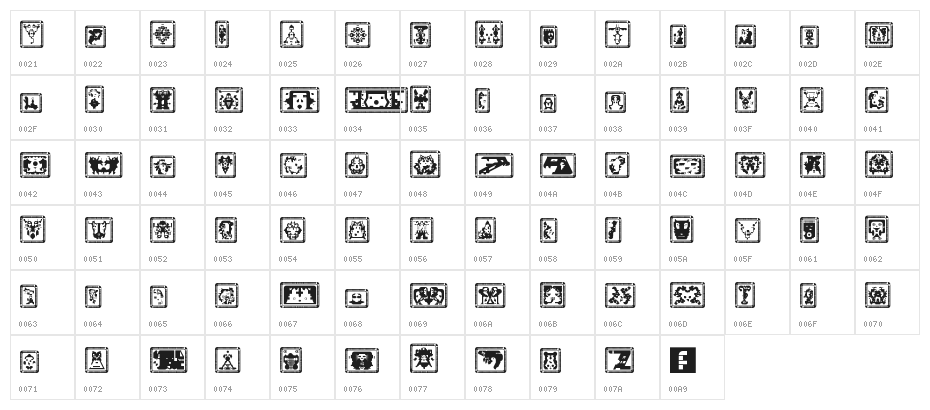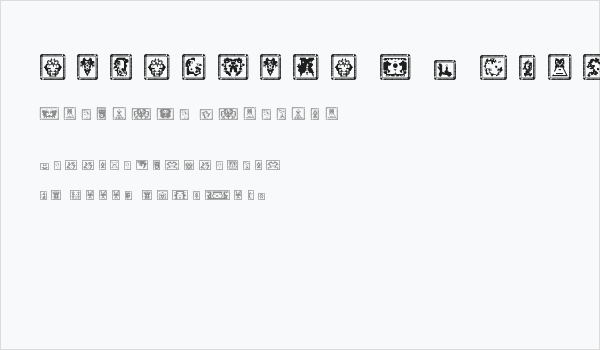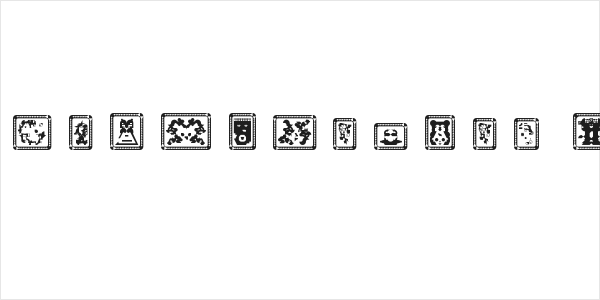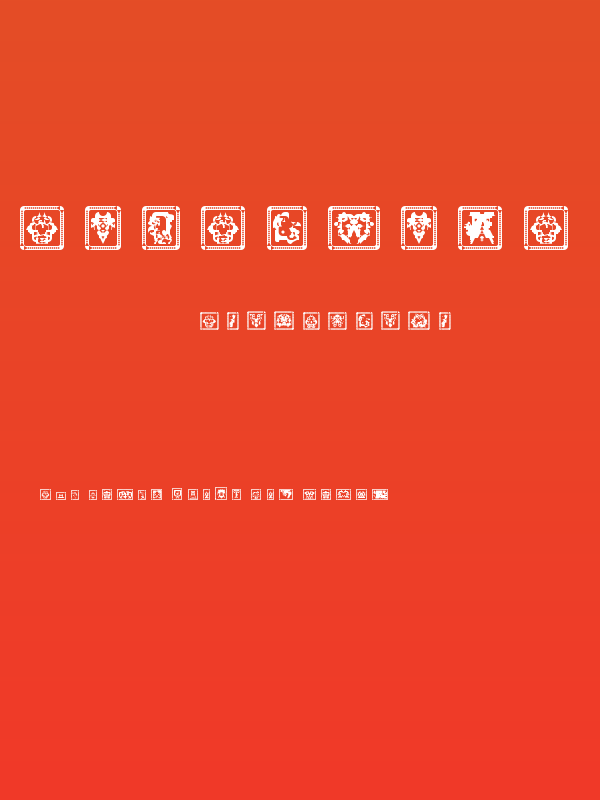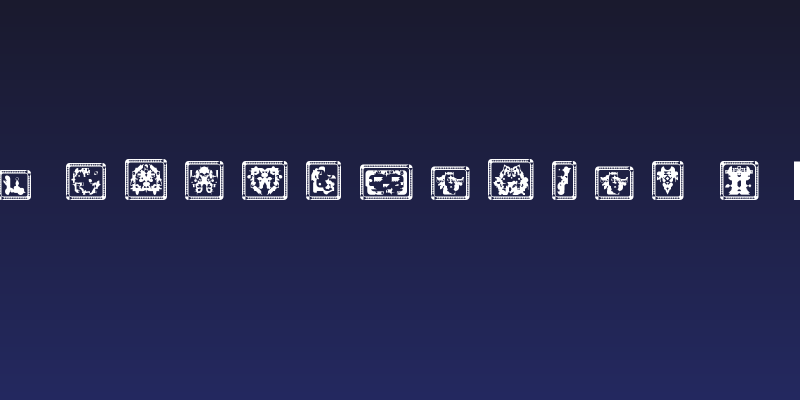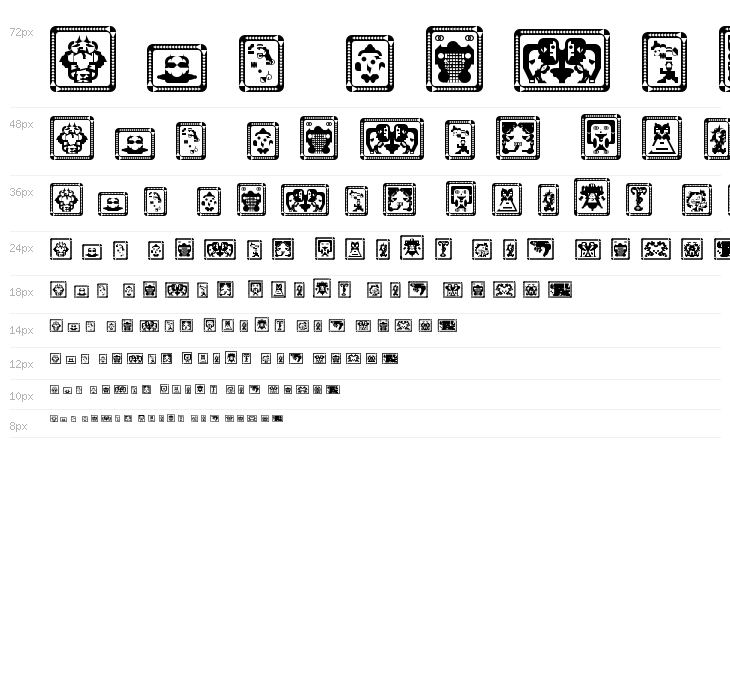
TESTAMENT B / Formaldhyde 1 à 80 Regular Font
TESTAMENT B / Formaldhyde 1 à 80 Regular Description
This font features a highly decorative and artistic style, with each character enclosed in a square frame. The characters are designed with intricate patterns and unique illustrations, giving them a distinct and playful appearance. The overall design is reminiscent of a whimsical art piece, with each letter and symbol crafted to stand out individually. The font is not suitable for body text due to its complex design but can be used effectively for creative projects where a bold and artistic statement is desired.
| Use Case | Logos, Headlines, Artistic Projects |
| Proposed Projects | Ideal for creative projects such as posters, album covers, or artistic branding where a unique and eye-catching font is needed. |